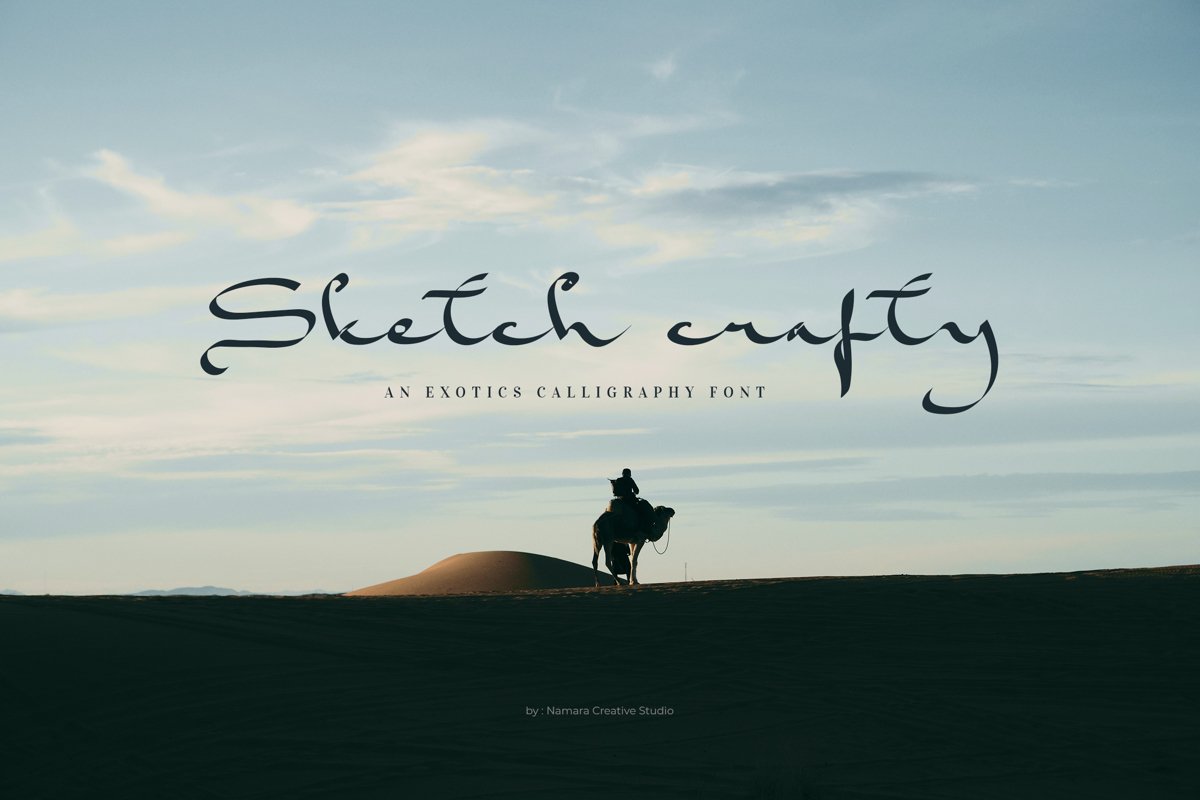
Sketch crafty
Sketch Crafty
Skecth Crafty embodies fun, quirkiness and authenticity. This enchanting handwritten font will turn any creative idea into a true standout.